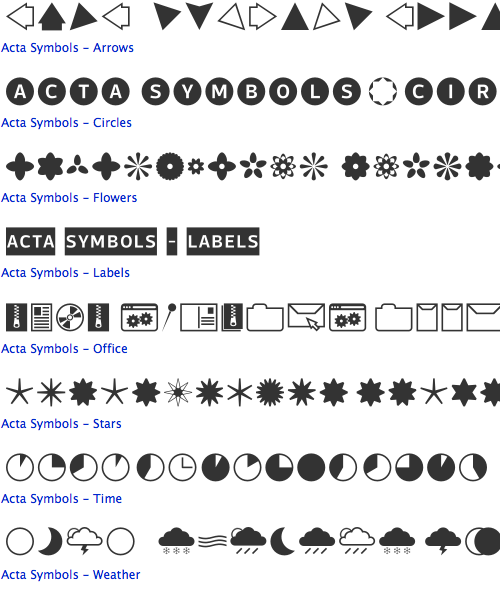
Acta Symbols Complete Family (8 fonts) (DSType)
First designed for chilean newspaper La Tercera in 2010, Acta family is a clean and fresh type system, while enough conservative for newspaper setting. The complete Acta Type System contains Acta and Acta Display both with six weights with matching italics; Acta Symbols with an amazing collection of symbols specially designed for newspapers and magazines and Acta Poster, a heavyweight version, elegant and eye catching in three styles with plenty of ligatures and alternates.FONTHAUS END USER LICENSE AGREEMENT